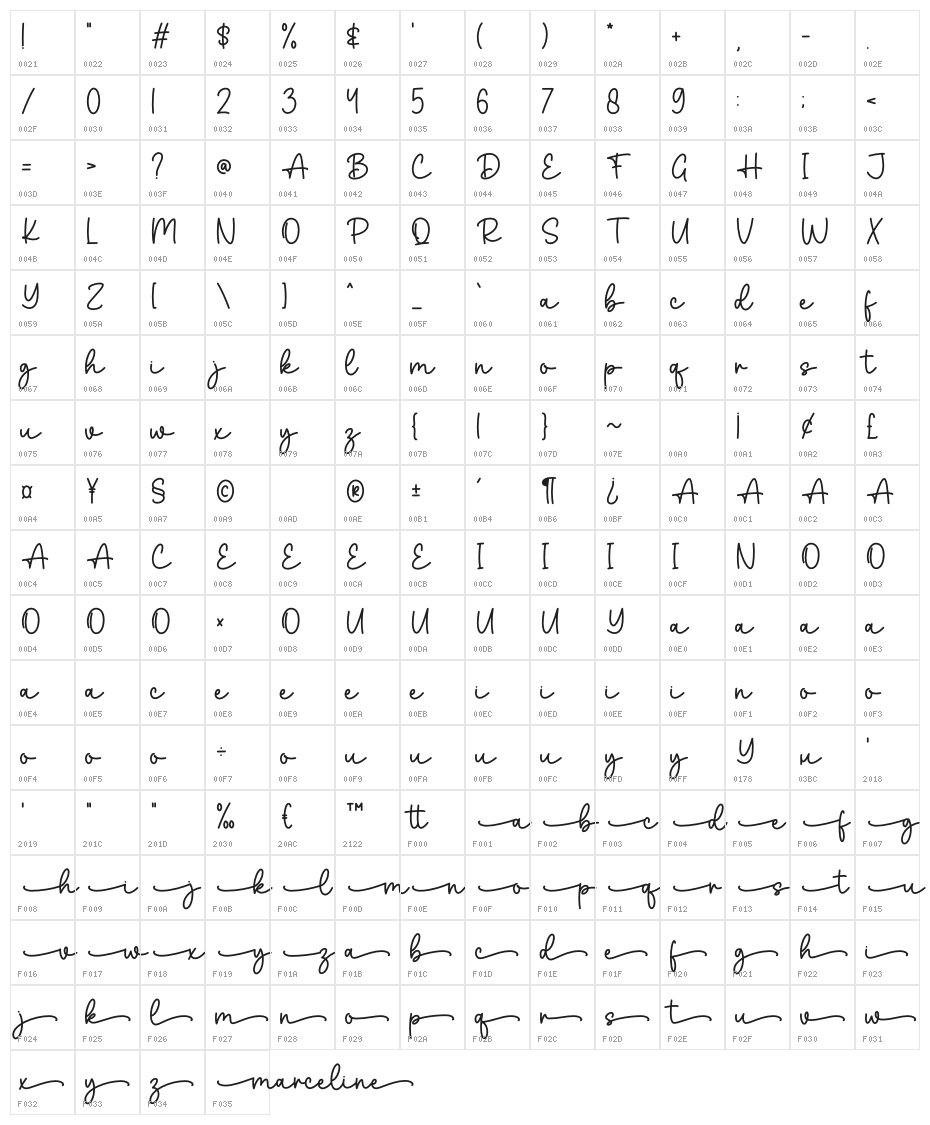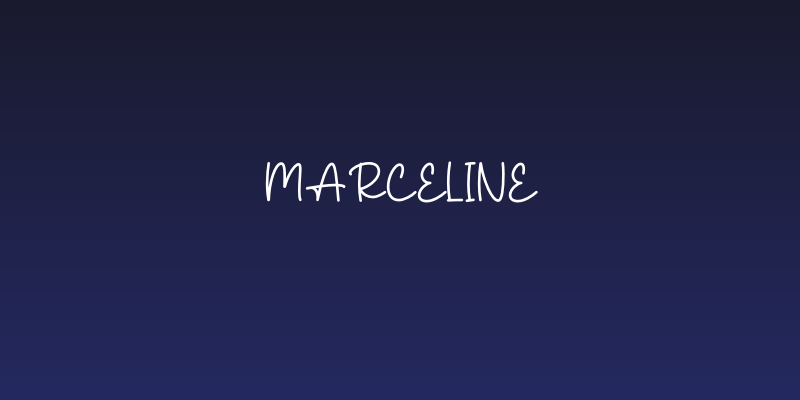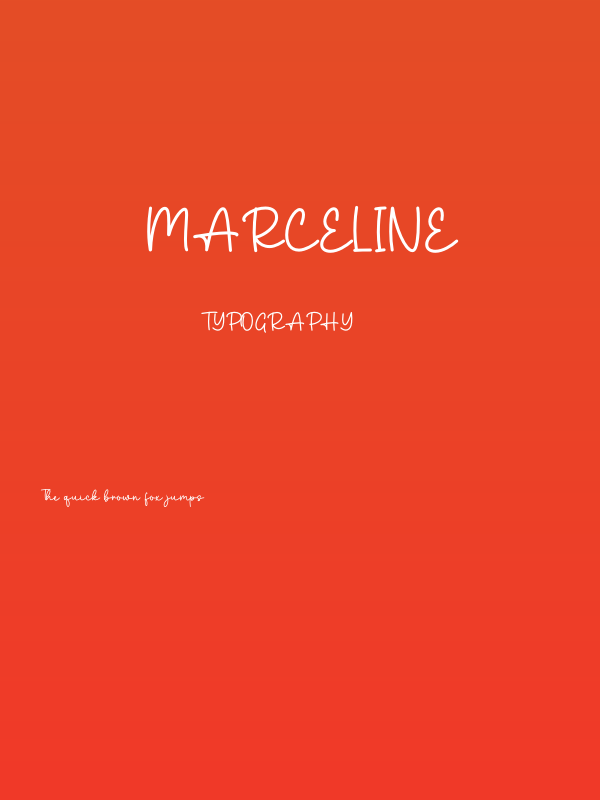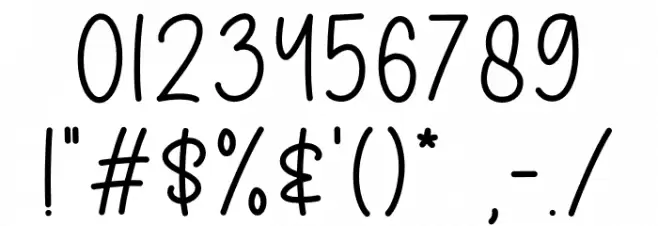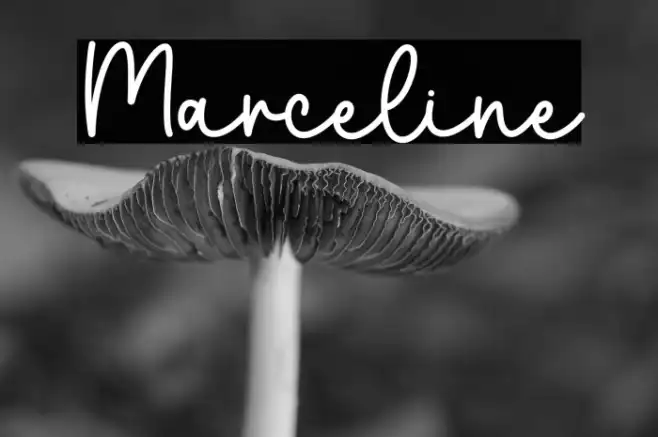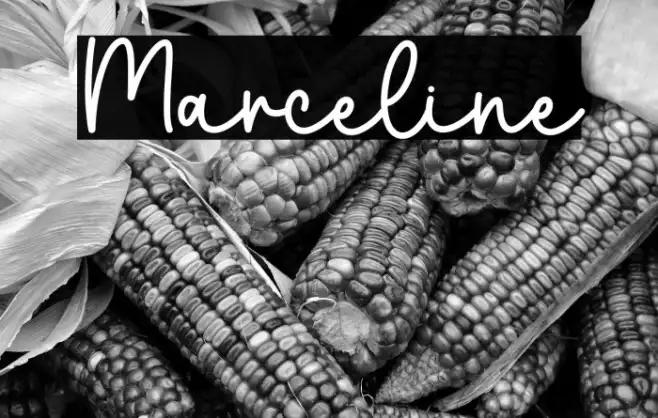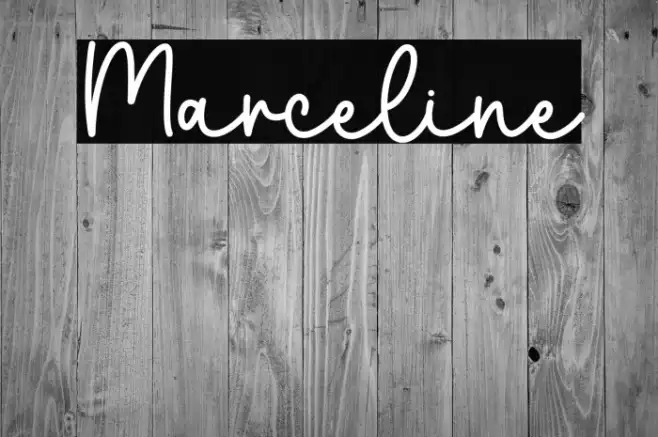
Marceline Font
Marceline Description
This font features a playful, handwritten style with a casual and friendly appearance. The letters are slightly slanted, giving it a dynamic and lively feel. The uppercase characters are bold and prominent, while the lowercase letters maintain a consistent flow with smooth curves and rounded edges. The numbers are clear and legible, matching the overall style of the alphabet. Special characters are well-integrated, maintaining the font's cohesive look. The strokes are consistent in width, providing a balanced and harmonious appearance.